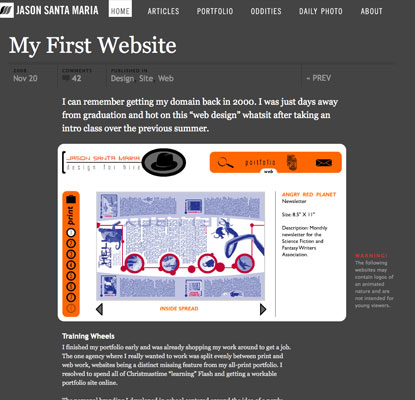
If there’s one common thing the majority of designers wish for, it must be originality. Yet with hundreds of design galleries featuring the latest trends, thousands of sites to fuel our creative thinking, it’s getting harder to be original. On the other hand, perhaps we’re looking in a wrong direction: it’s the idea and the execution of it that counts, not the design itself, and not the fact that it’s been done before.
The first impression everyone gets from Jason Santa Maria’s latest site incarnation is how original and groundbreaking it is. But after some careful thinking and designer’s explanations we realize that no, we are not witnessing a revolution in web design but rather an experiment in what blogs can look like if we start treating them as a typical web site (especially the one from the old times) where every page looks different, or as one of the magazines we like to read where every article is laid out slightly different from the other, with design supporting the content.
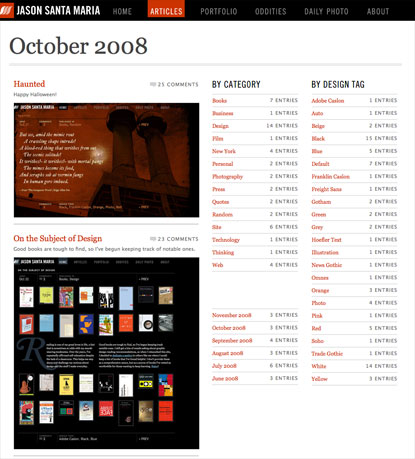
After all, why should every blog post fit the same template? Just because this is how the majority of blogging platforms are built to work, it doesn’t mean that we shouldn’t think outside of that typical blogging box and turn to media for inspiration. That’s why Jason Santa Maria’s radical approach to laying out every blog post differently is so praiseworthy.
Technicalities
When every page of the site comes with a different layout and style, it’s important to keep certain elements unchanged to let the visitors know that they didn’t end up on someone’s else site after clicking on a post title. Jason achieves that by keeping the same header, comments and footer structure, changing only their colour scheme and leaving the middle content area of the site to all the experiments in style and layout.
Of course, adhering to a strict grid (8 columns 100px wide, 10px gutters, 20px margins) helps to keep the site pages and all the elements within in a perfect harmony.
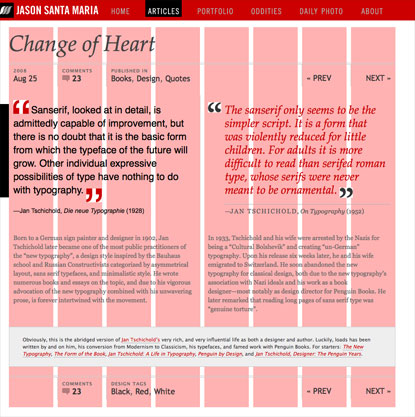
He also separated CSS styles into different files: site’s foundation and all default styles are set in master.css, while every page is calling its own CSS file with the same name as the title of the page/post (e.g. on-the-subject-of-design.css) that precedes and thus overwrites the default styles in master.css.
Obviously it takes lots of careful planning to organize CSS styles efficiently. I highly recommend everyone to study CSS code on Jason Santa Maria’s site: you’ll be surprised to rediscover the power of cascades and CSS code so exquisite in its simplicity that will make you to rethink your approach to CSS logic.
For instance, let’s take a look at the tactics employed to indent the content on A New Day article (where, by the way, you see the default format of the site): rather than re-position DIVs that contain the indented screenshots, it’s the paragraphs in the content that are set with horisontal margins, while DIVs appear where they should – at the beginning of the main content DIV:
And as a quick homework for you all: check out and compare the code used in styling categories and tags on Jason Santa Maria’s site vs. categories on Subtraction.com.
Attention to details
A painstakingly meticulous attention to details is what adds the inscription “great” to a rather general title of “designer”. There are plenty of examples of such greatness on Jason’s site: from a simple but an eye-catching change of comments ‘speech’ icon to a ‘skull’ icon to celebrate Halloween, to occasional treats with delicious drop caps set in the background, to a superb sIFR treatment of titles and navigation in Trade Gothic, or a poem set in a stunning Franklin Caslon Italic, to gorgeous background images, to an exquisitely crafted rich footer.
Typography
Even though the default font on the site is set to Lucida Sans Unicode/Lucida Grande, we see it used mainly for the auxiliary data and in the footer. The main content is usually displayed in Georgia. Then there’s also Trebuchet MS used for post’s meta data like category and tag names, navigation between posts, headings in articles. And of course, how can we forget the almighty Trade Gothic, Jason’s favourite typeface, that’s generously used throughout the site, including the logo type.
That brings us to four different fonts used on one site, plus Monaco is used for CODE and PRE tags. But wait, there are also additional typefaces that are used on different occasions: Omnes Italic, Soho, Franklin Caslon Italic, Auto Black Italic, Freight Sans Book… Yet despite such a typographic concoction Jason’s site doesn’t appear amateurish, on the opposite, only a highly skilled professional can pull it off by seamlessly blending all these typefaces so well that they become an integral part of the overall design without going overboard.